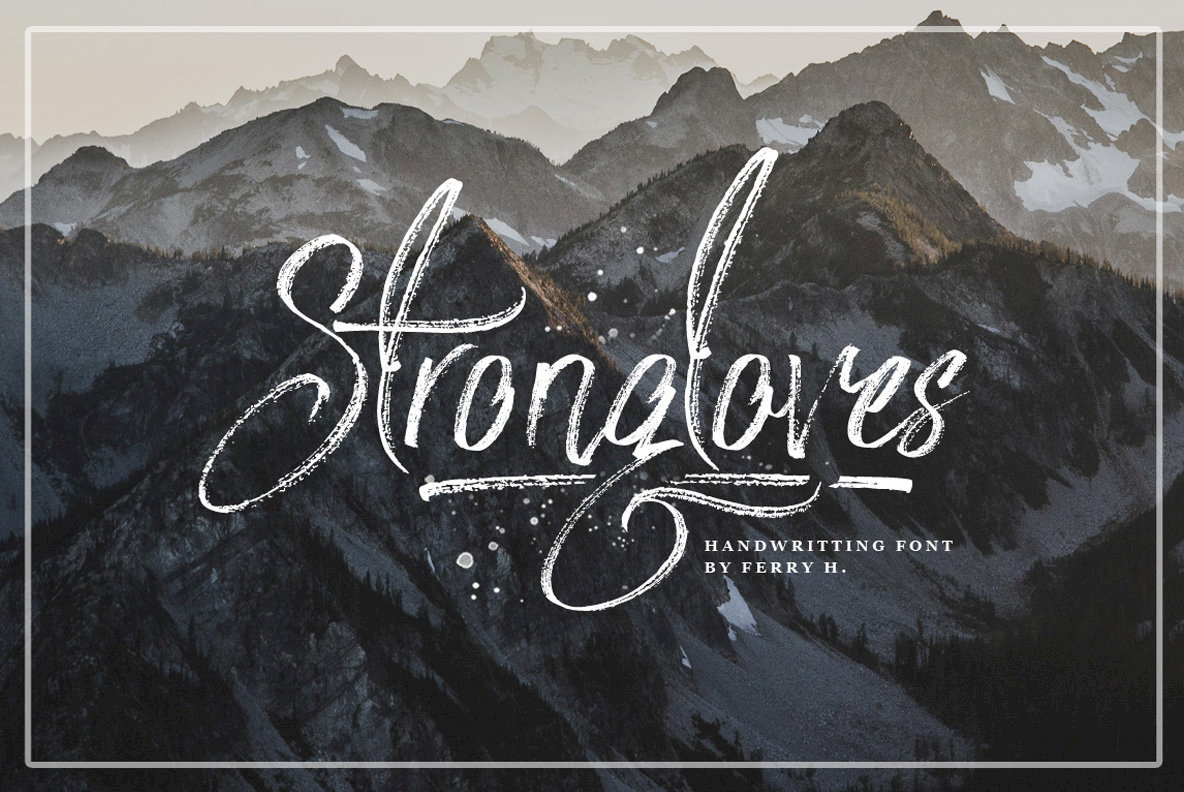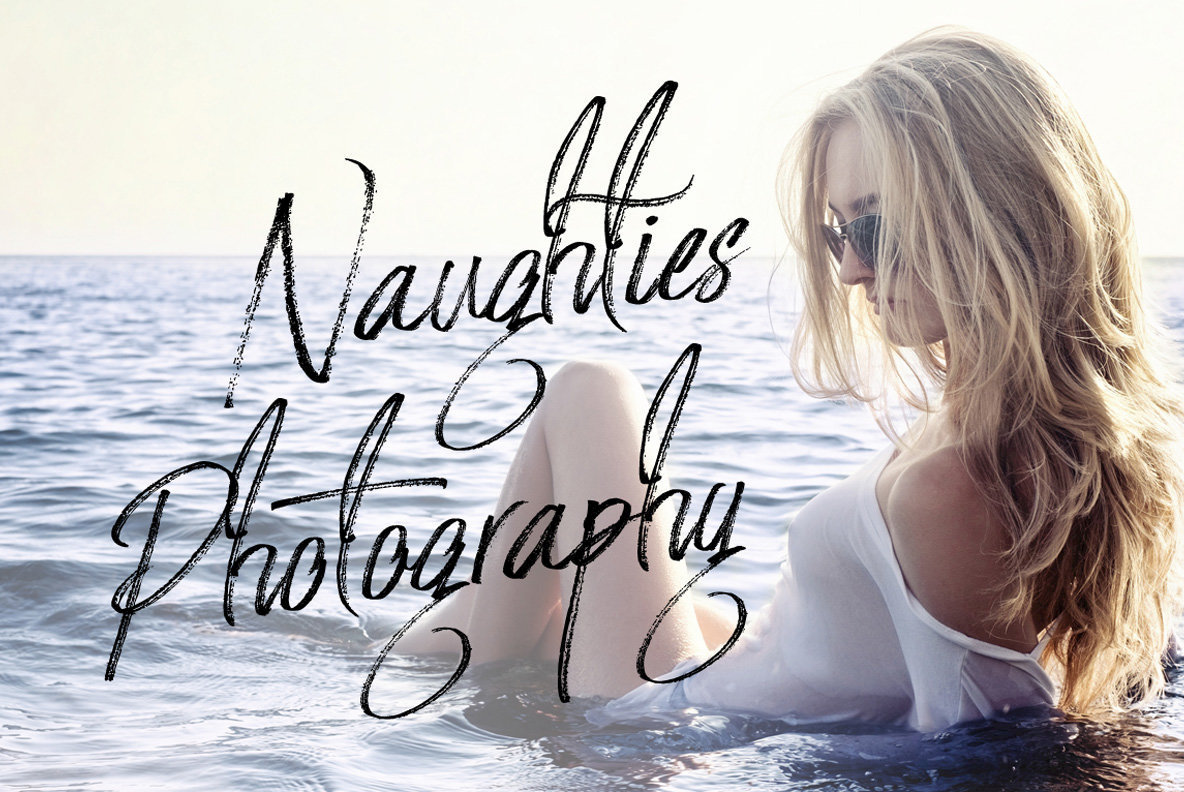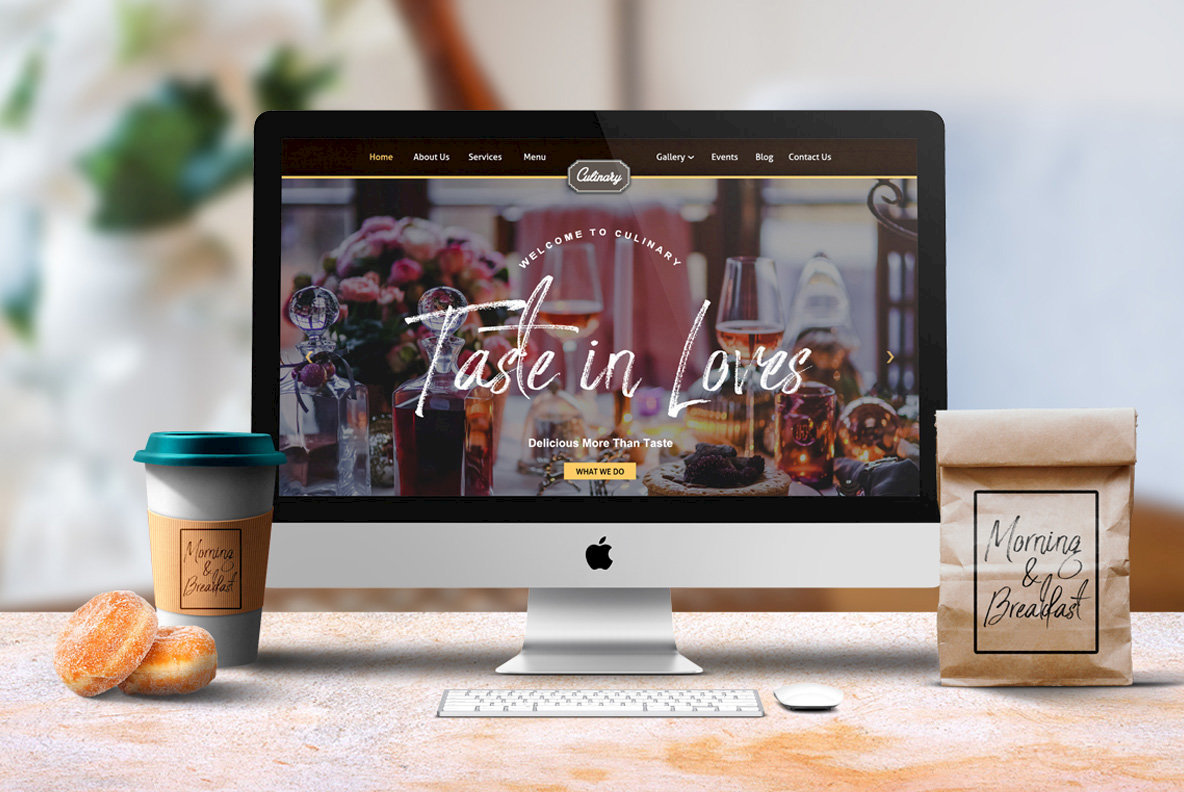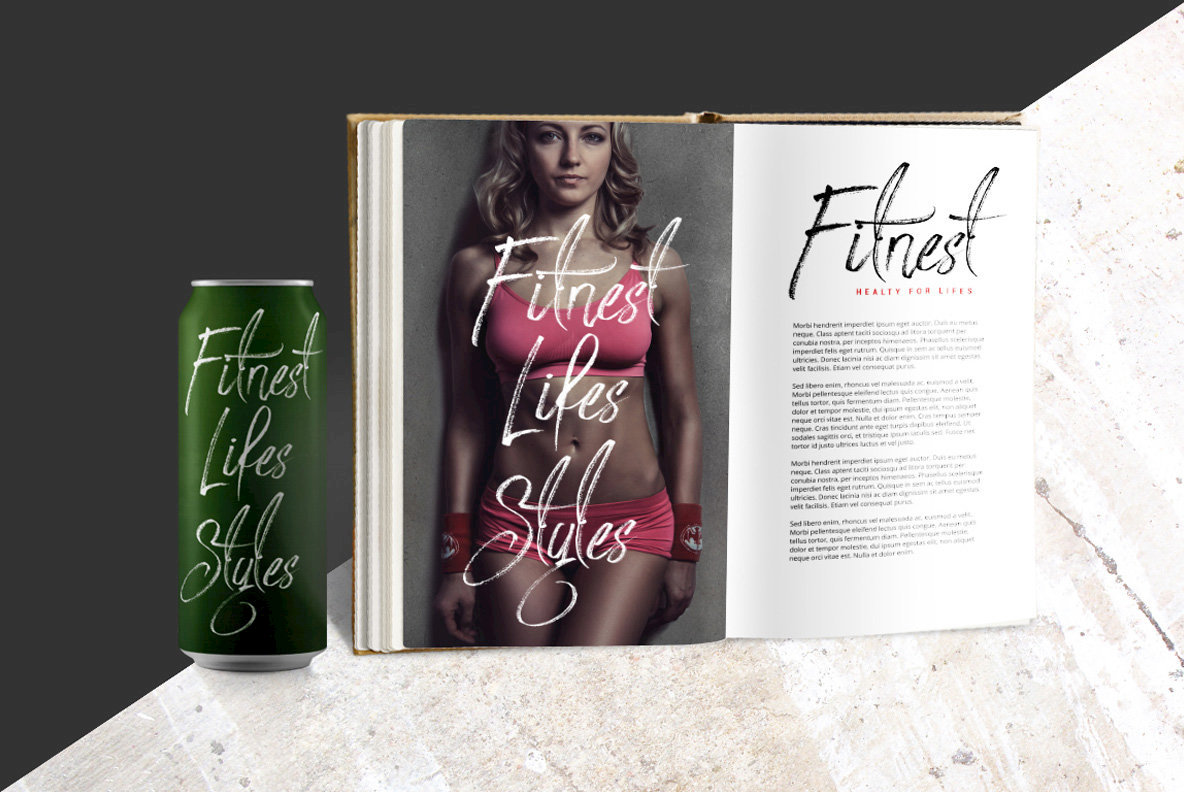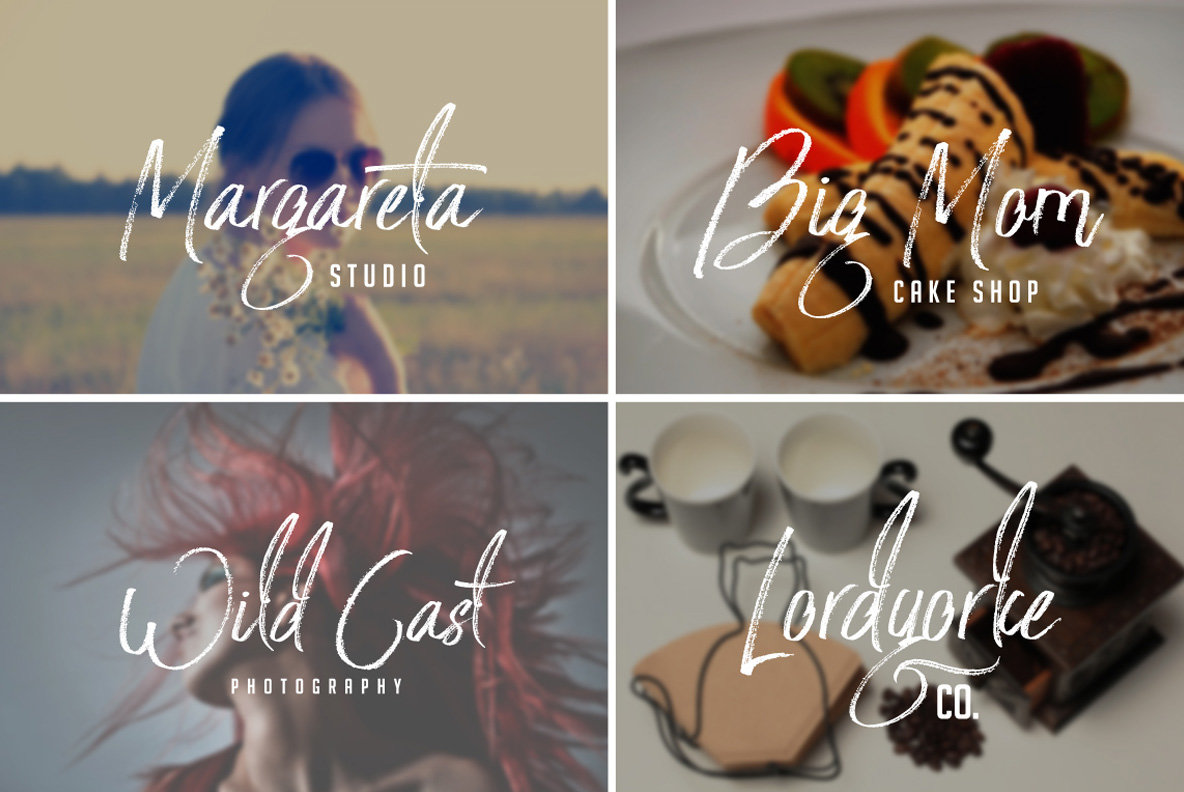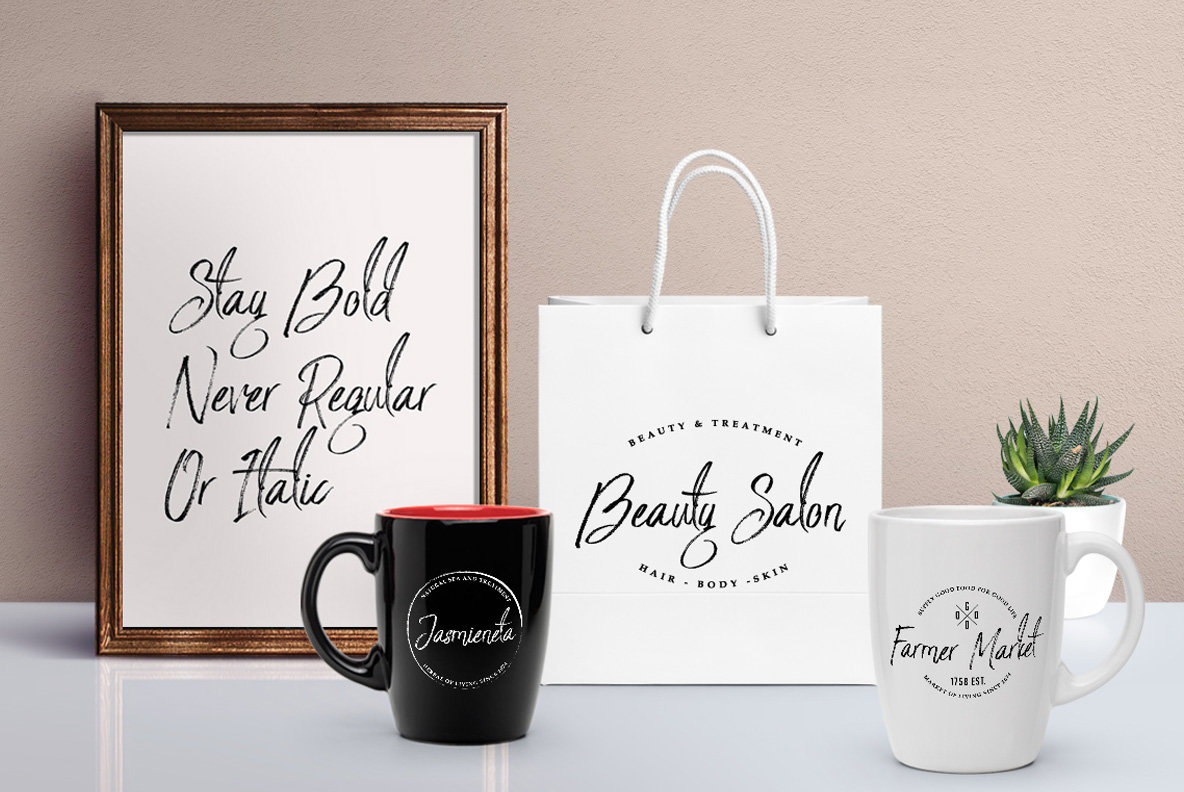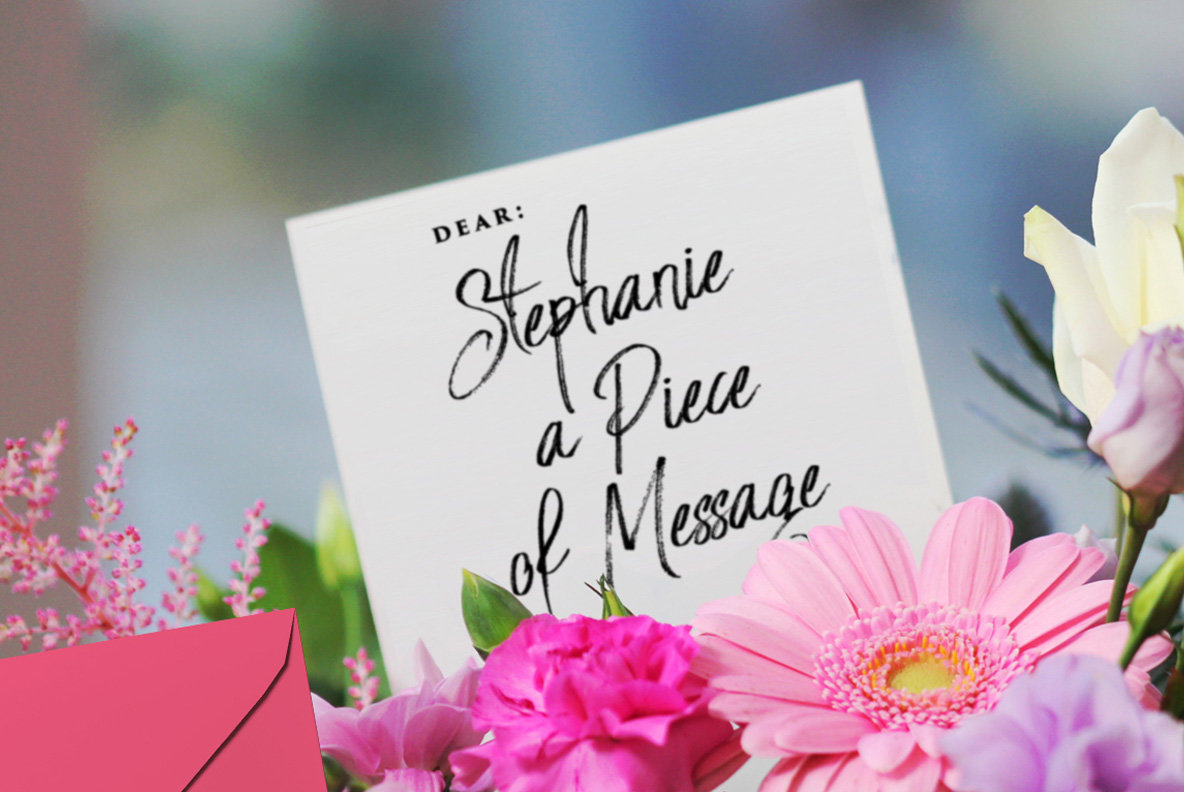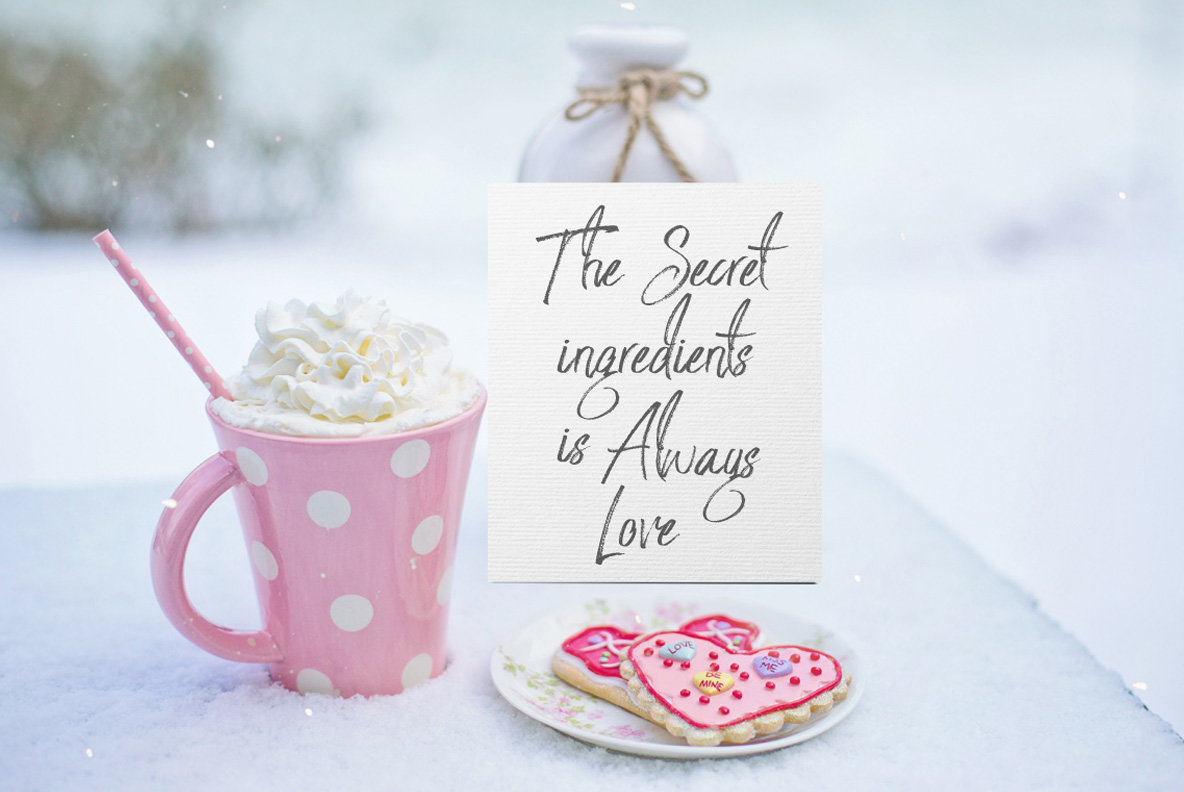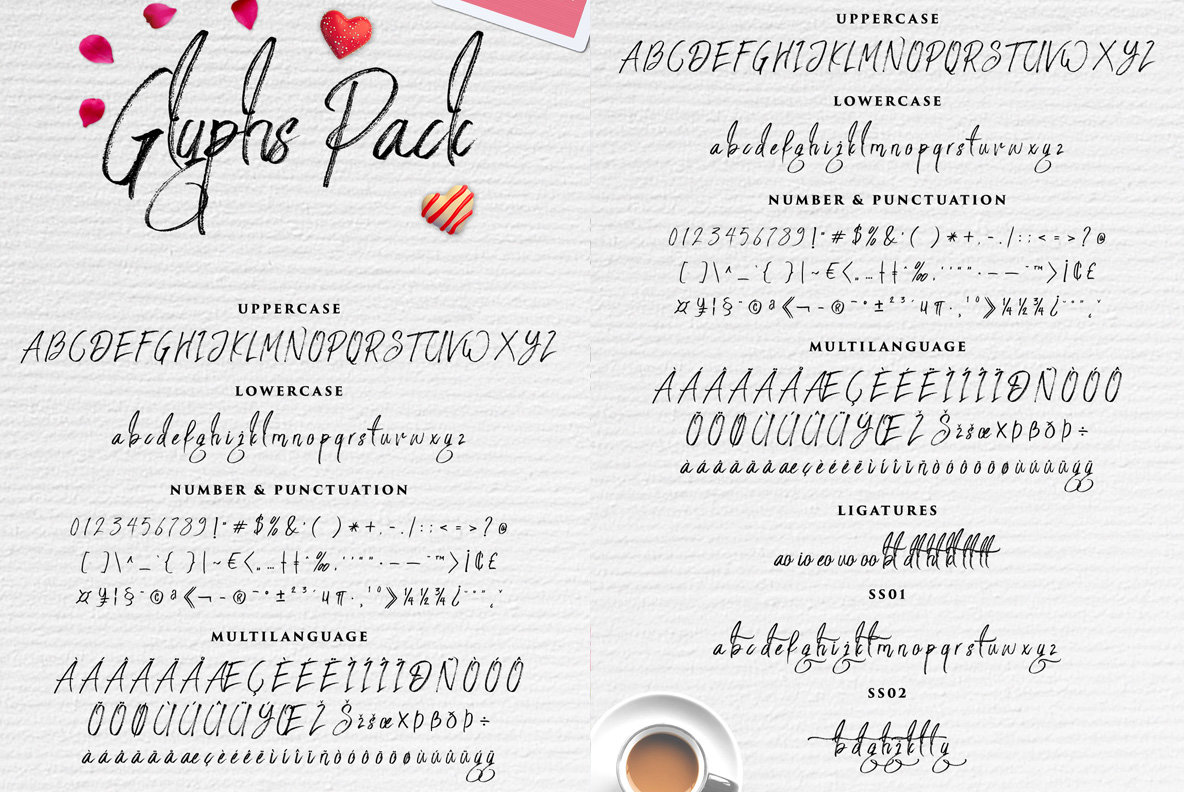
Strongloves Font
Strongloves
The Strongloves font offers an expressive hand-lettered style that harmonizes with a diverse range of design applications. Its dry brush script captures a lively yet sophisticated aesthetic, making it an ideal choice for projects as varied as bespoke wedding invitations, branded merchandise like t-shirts and stickers, and captivating logos or badges.Strongloves: Dynamic Dry Brush Script Font